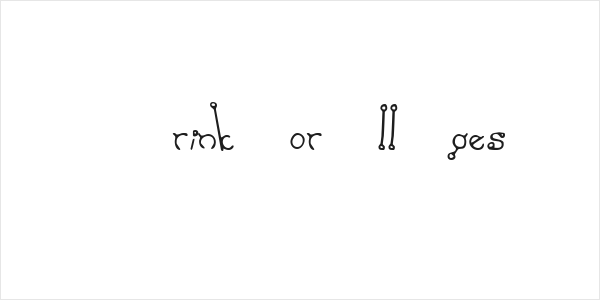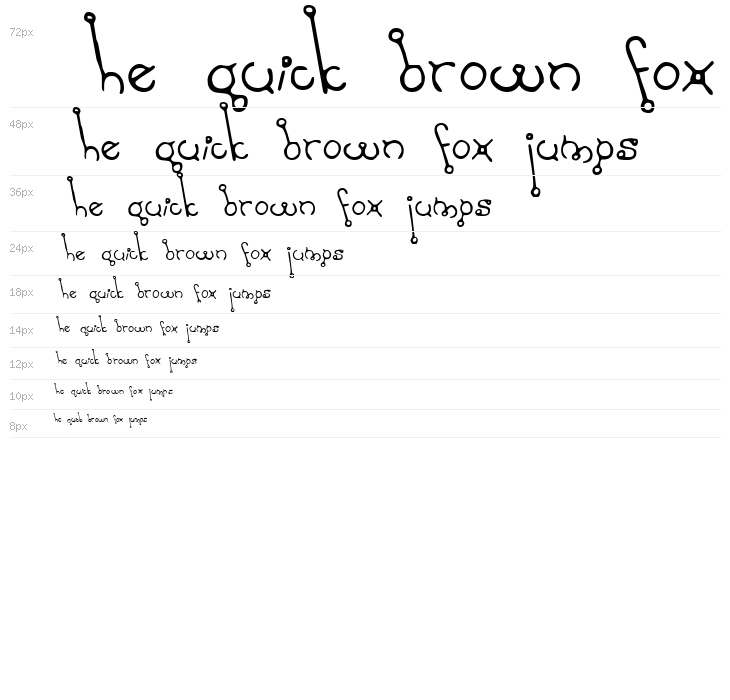
A Drink For All Ages Font
A Drink For All Ages Description
This font features a unique and playful design with each character incorporating circular elements and extended lines that resemble circuit connections. The lowercase letters are crafted with a whimsical touch, where each letter has a distinct loop or dot, adding a sense of movement and creativity. The font's overall appearance is reminiscent of a futuristic or technological theme, making it stand out with its decorative and artistic style. The characters are evenly spaced, ensuring readability while maintaining their distinctive look. This font would be ideal for projects that aim to convey innovation, technology, or a modern artistic flair.
| Overall Style | Futuristic, Artistic |
| Use Case | Logos, Posters, Creative Branding |
| Proposed Projects | Tech-themed posters, innovative product branding, creative digital art, futuristic event invitations. |